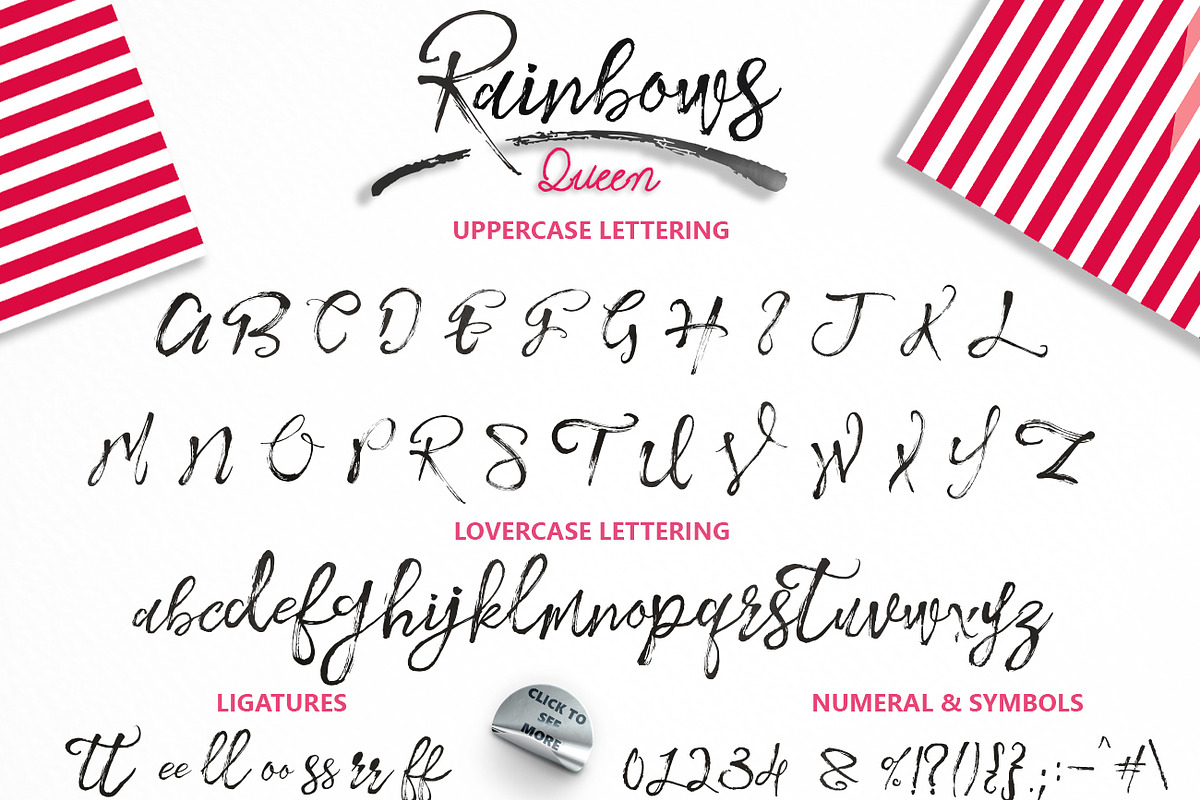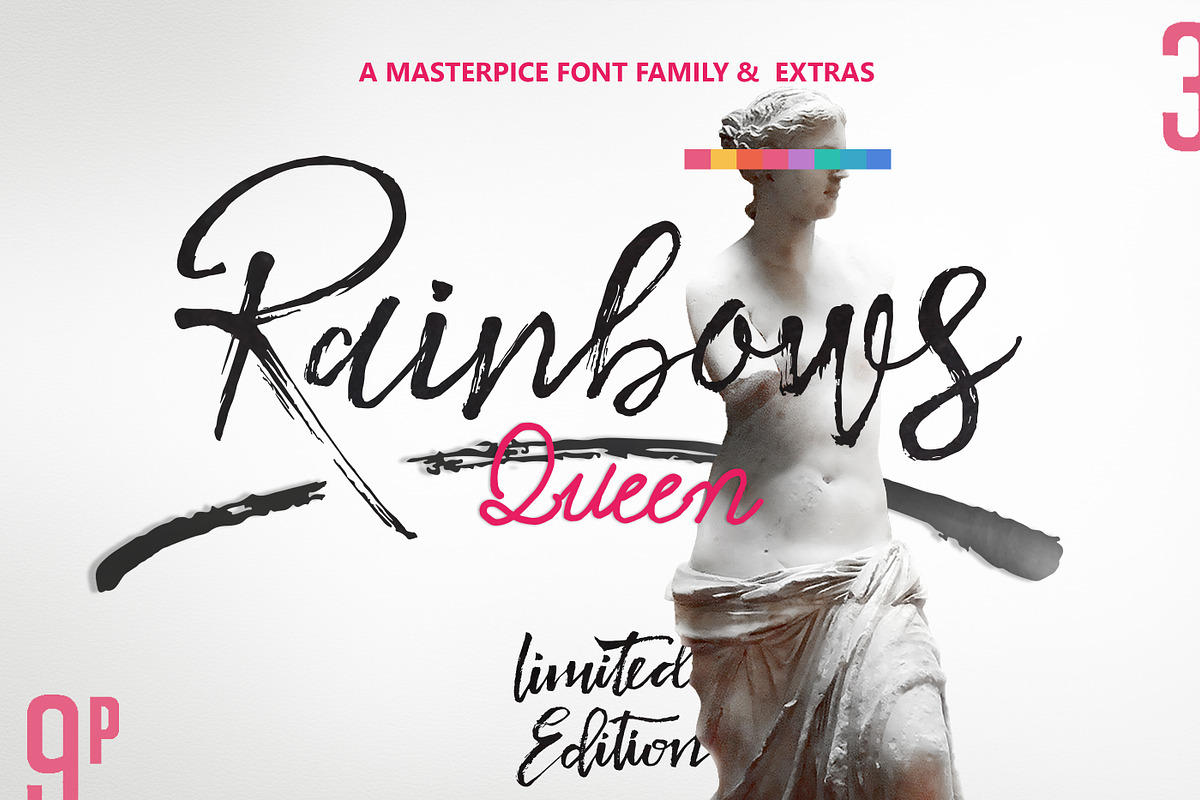
Rainbows Queen Typefaces & Extras
Rainbows Queen Typefaces & Extras by Yasir Ekinci is a font selected for branding, posters, packaging, typography.
- Rainbows Queen Script - It comes with a handy set of OpenType Alternates , Ligatures- all to add an aestetic touch to your designs.
- Rainbows Queen Regular
- Rainbows Queen Cool Light Regular
- Rainbows Queen Curly Regular
Rainbows Queen Typefaces & Extras by Yasir Ekinci fits naturally into Branding, posters, packaging, typography.